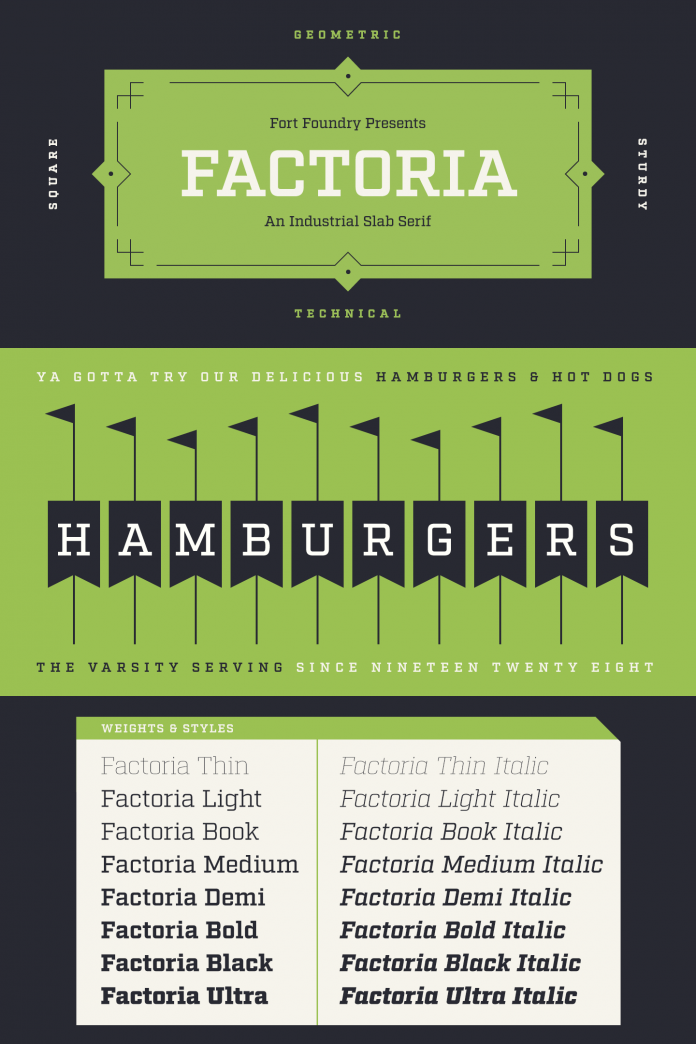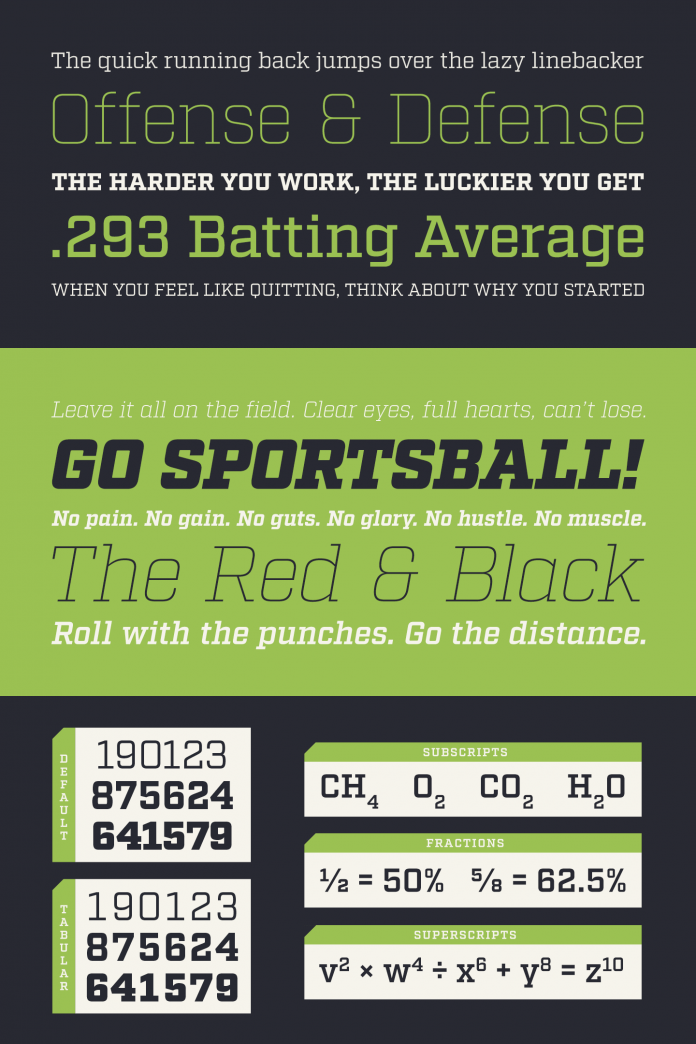
Factoria, a geometric and square slab serif font family by Mattox Shuler of Fort Foundry.
Typeface designer Mattox Shuler of Fort Foundry has created the Factoria font family out of his earlier design for the Industry typeface. Factoria is a geometric and square slab serif font with a striking look & feel. Its unique design can be used for various applications. It works pretty well for signage on industrial buildings as well as magazines or screen design. Factoria’s lighter versions provide a clean appearance, while its thicker weights have a more sturdy character.
The complete type family comprises 16 fonts including 8 weights (ranging from Thin to Ultra) as well as matching italic versions. You can use Factoria together with its sans-serif counterpart, the Industry type family. The several OpenType features include tabular figures, fractions, subscripts, superscripts, numerators, and denominators.